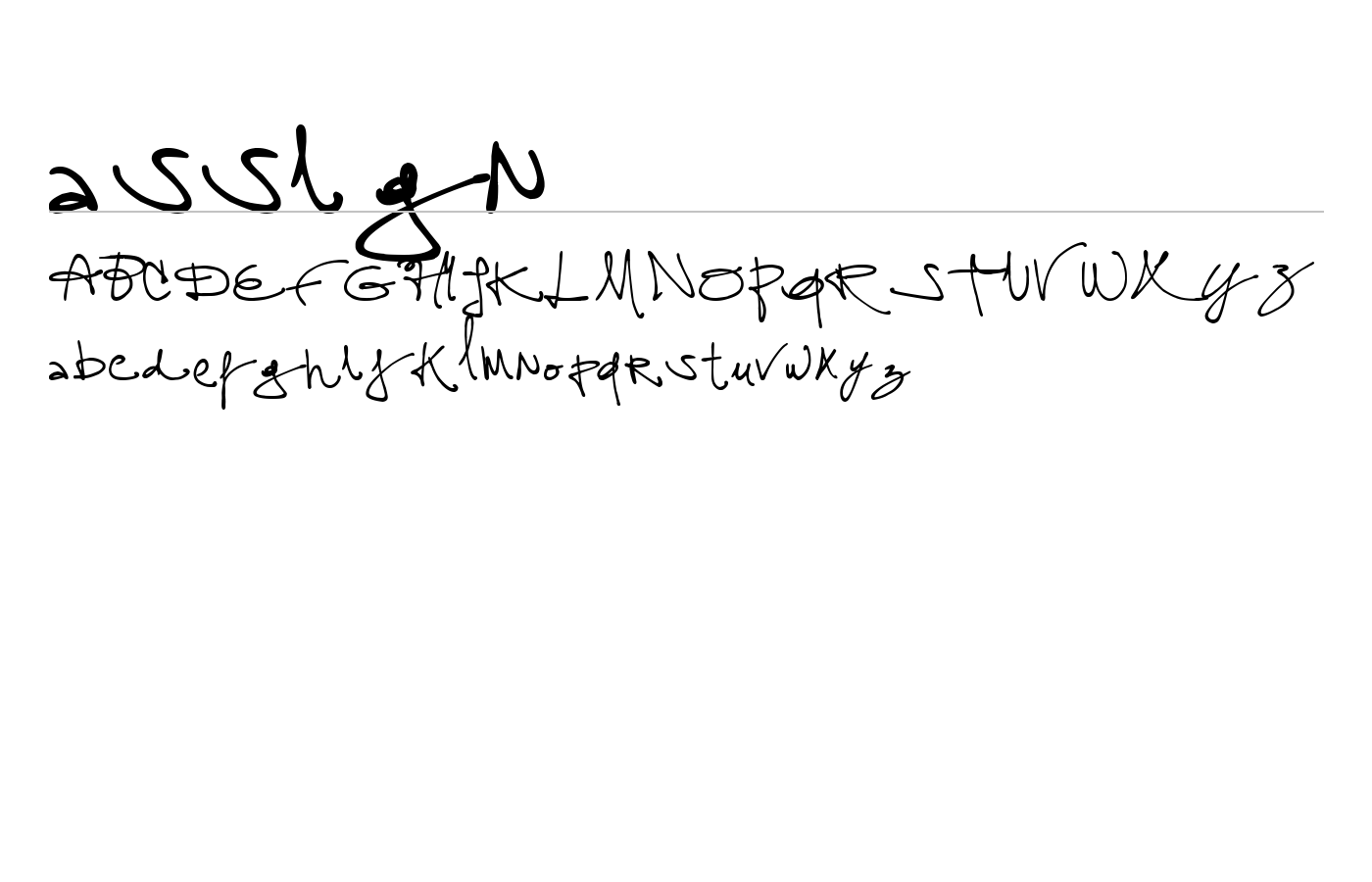
Assign Font is a highly expressive handwritten script with a casual and artistic feel. Its thin, uneven strokes and irregular letterforms create a spontaneous and personal style, making it ideal for creative projects, personal branding, and informal designs seeking a unique, human touch. This font works best in headlines, logos, and artwork where a distinctive, playful personality is desired.
assign Font